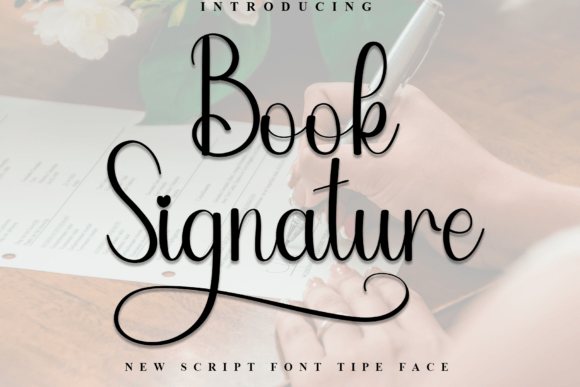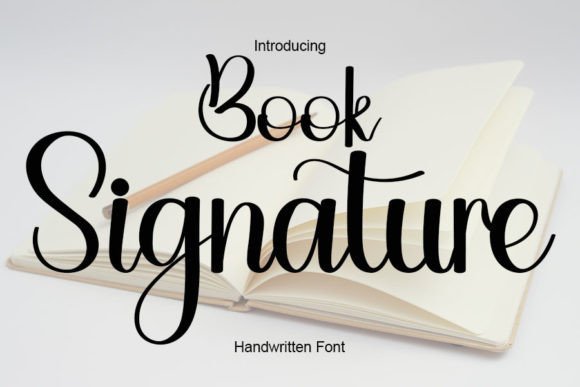
When Words Meet Artistry: The Beauty of Book Signature Font
Have you ever sat with a pen and paper, trying to capture the perfect handwritten note or card for a loved one? The struggle is real, but the end result is always worth it – a personal touch that speaks volumes about our thoughtfulness and creativity. As designers, we know that the right font can elevate our work from ordinary to extraordinary, and that’s exactly what the Book Signature Font does.
This elegant script font is more than just a pretty face; it’s a sophisticated tool that adds a touch of refinement to any project. Whether you’re designing wedding stationery, creating a personal brand, or crafting a book cover, the Book Signature Font is the perfect choice for those who crave a stylish and professional signature look. As designers, we appreciate its versatility and the value it brings to our work, making it a valuable addition to our creative arsenal.
Key Features of Book Signature Font
• Font Family: Book Signature Font is a script font, perfect for creating a personal and elegant touch in your designs.
• Character Count: The font contains over 200 characters, including uppercase and lowercase letters, numbers, and punctuation marks.
• Unique Characteristics: Book Signature Font features a unique, hand-written style with subtle flourishes and connecting strokes, giving it a personal and organic feel.
Designer Review: Book Signature Font
Overall, I was impressed with the Book Signature Font. It has a unique, elegant aesthetic that would be perfect for those looking to add a touch of sophistication to their designs. ✨ The font’s subtle flair and rounded edges give it a handwritten feel without looking too cursive.
The Book Signature Font also comes in a range of weights, from light to bold, making it easy to use in various design contexts. I found the font to be highly customizable, allowing for adjustments to be made to suit different design styles. ✨ The font’s high legibility also makes it an excellent choice for body text.
Limits and Areas for Improvement
• ⚠️ Limited language support: The font only includes a limited number of languages, which may be a concern for designers working with international clients.
• ⚠️ Not suitable for digital display: The font’s design makes it more suitable for print materials, and it may not display well on digital screens.
Despite these limitations, I found the Book Signature Font to be a great addition to any designer’s toolkit. Its unique aesthetic and high customizability make it an excellent choice for those looking to add a touch of elegance to their designs.
Book Signature Font is commonly used for:
• Book covers and title pages
• Author signatures and quotes
• Wedding invitations and stationery
• Business cards and letterheads